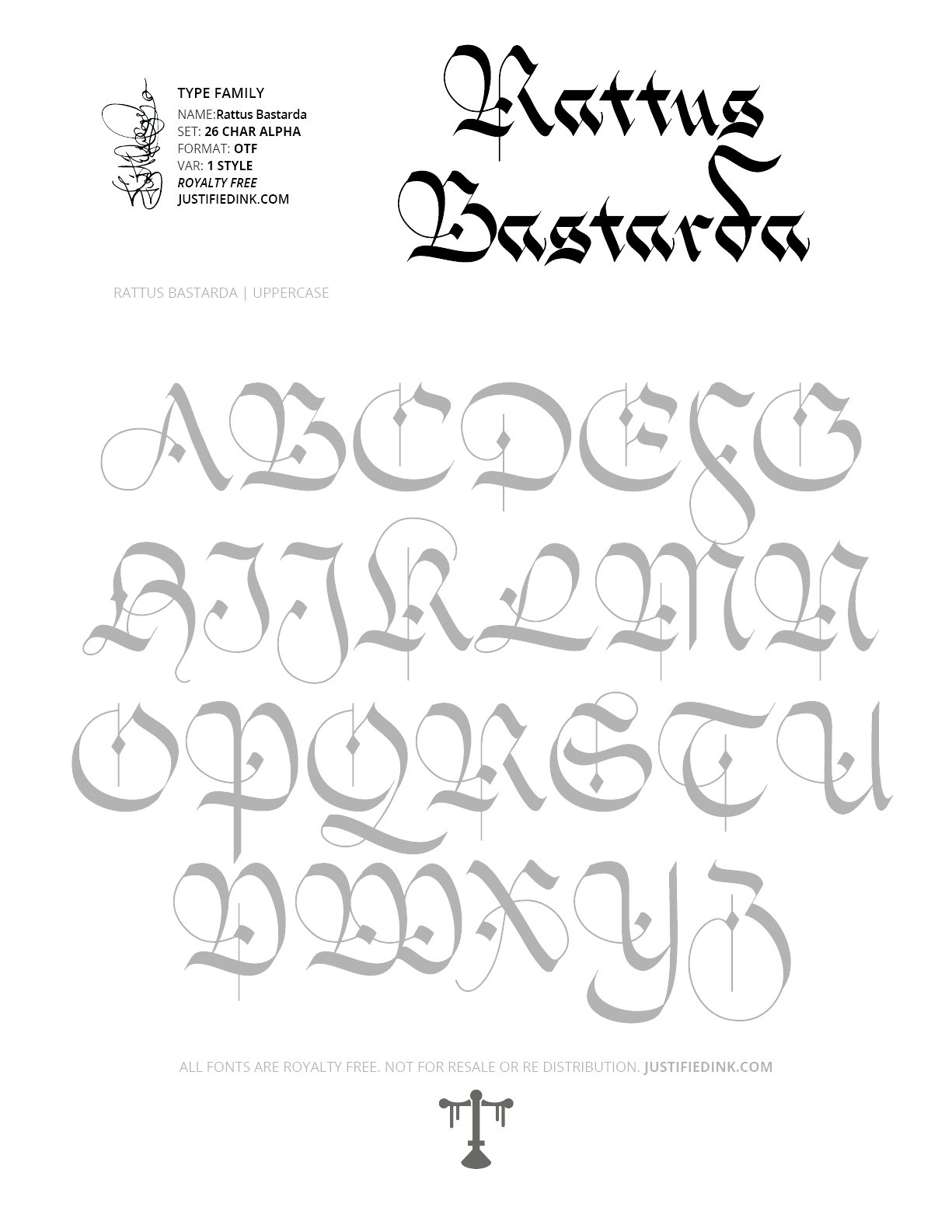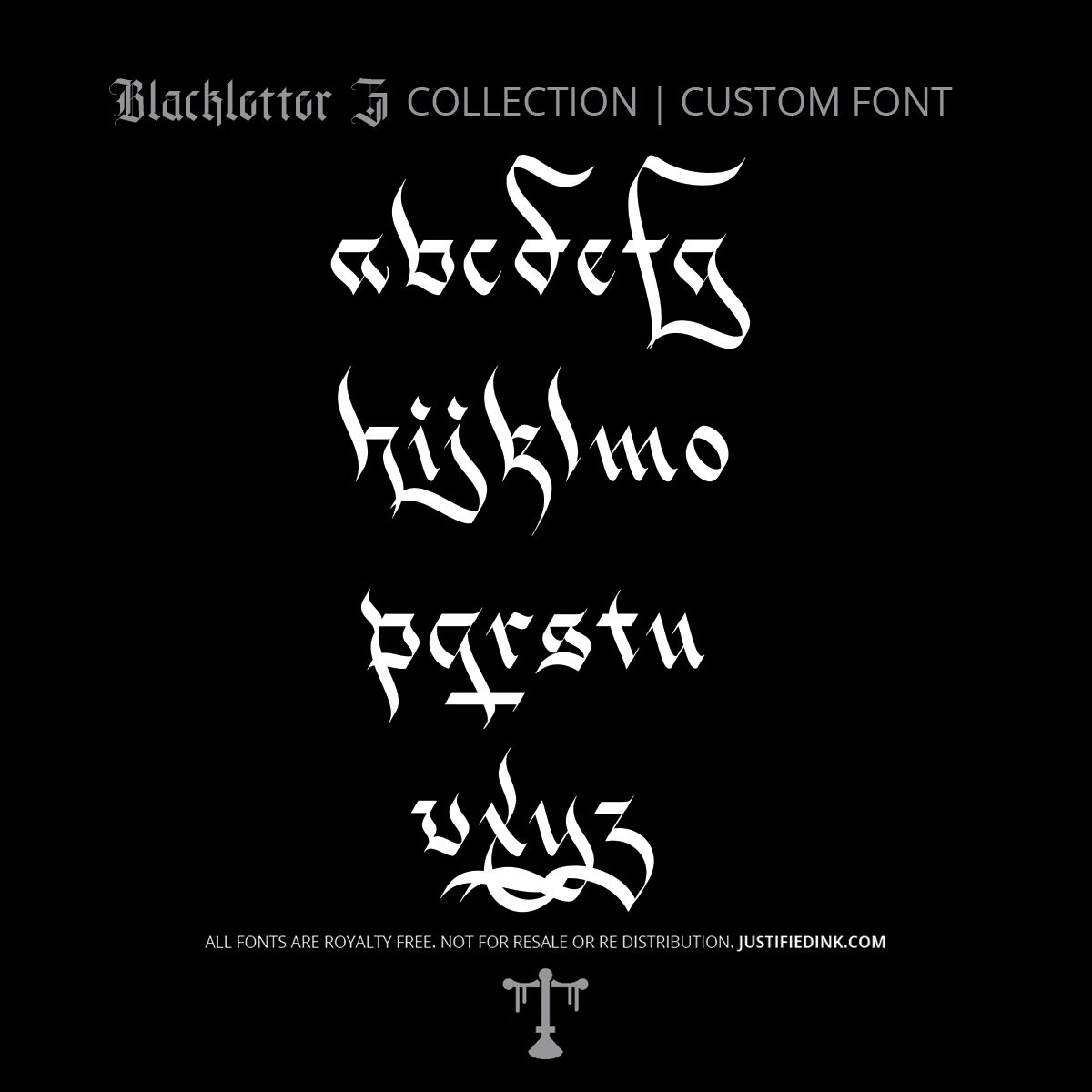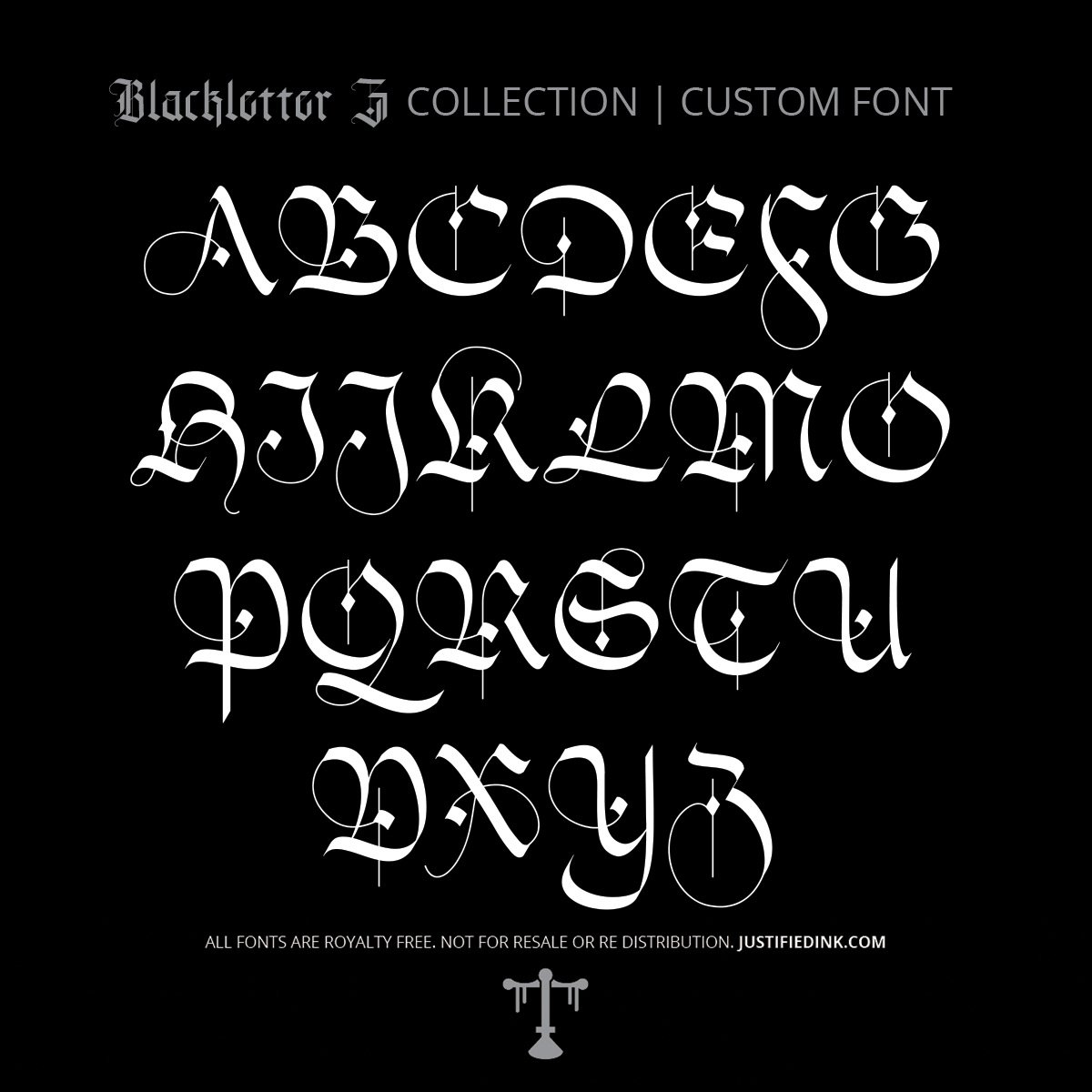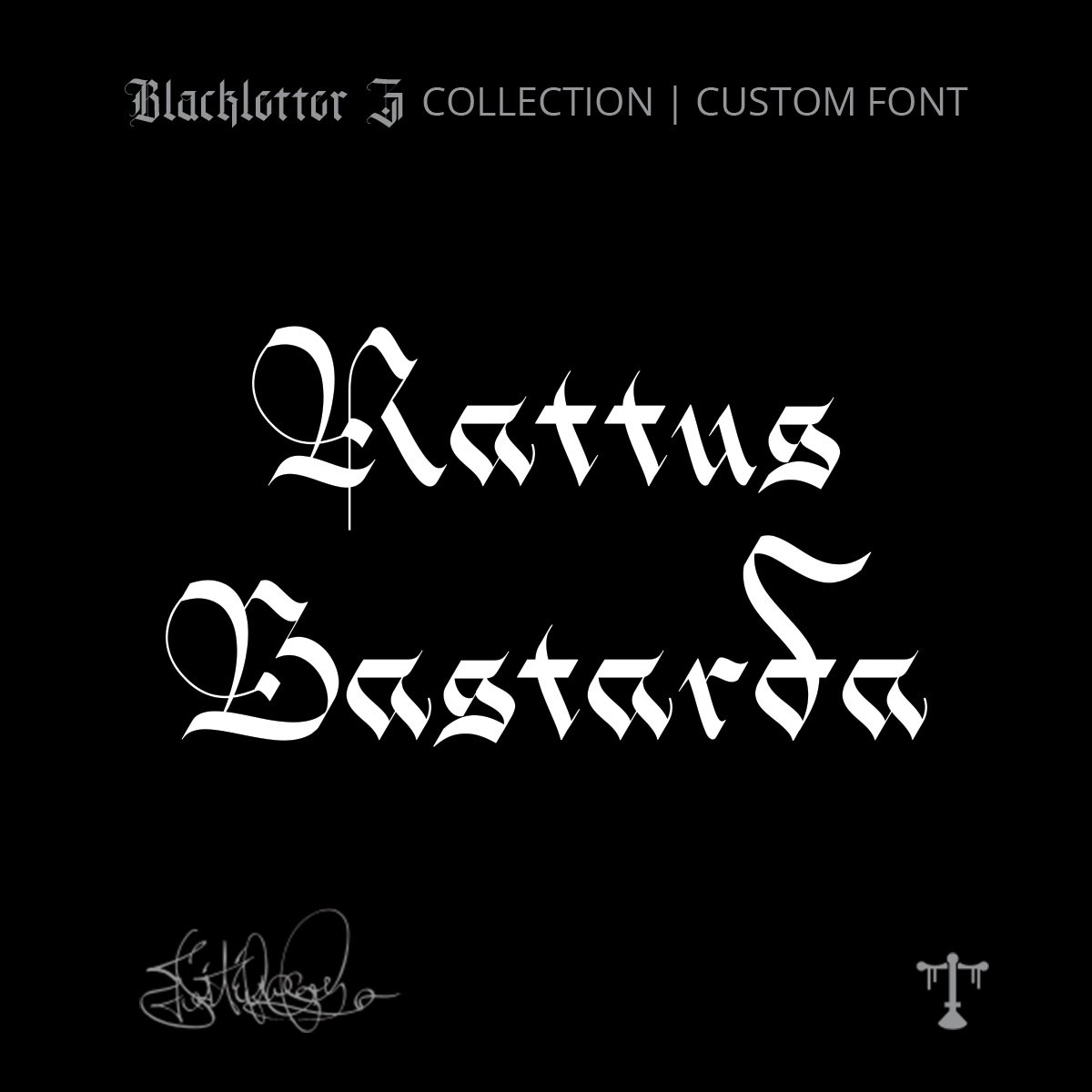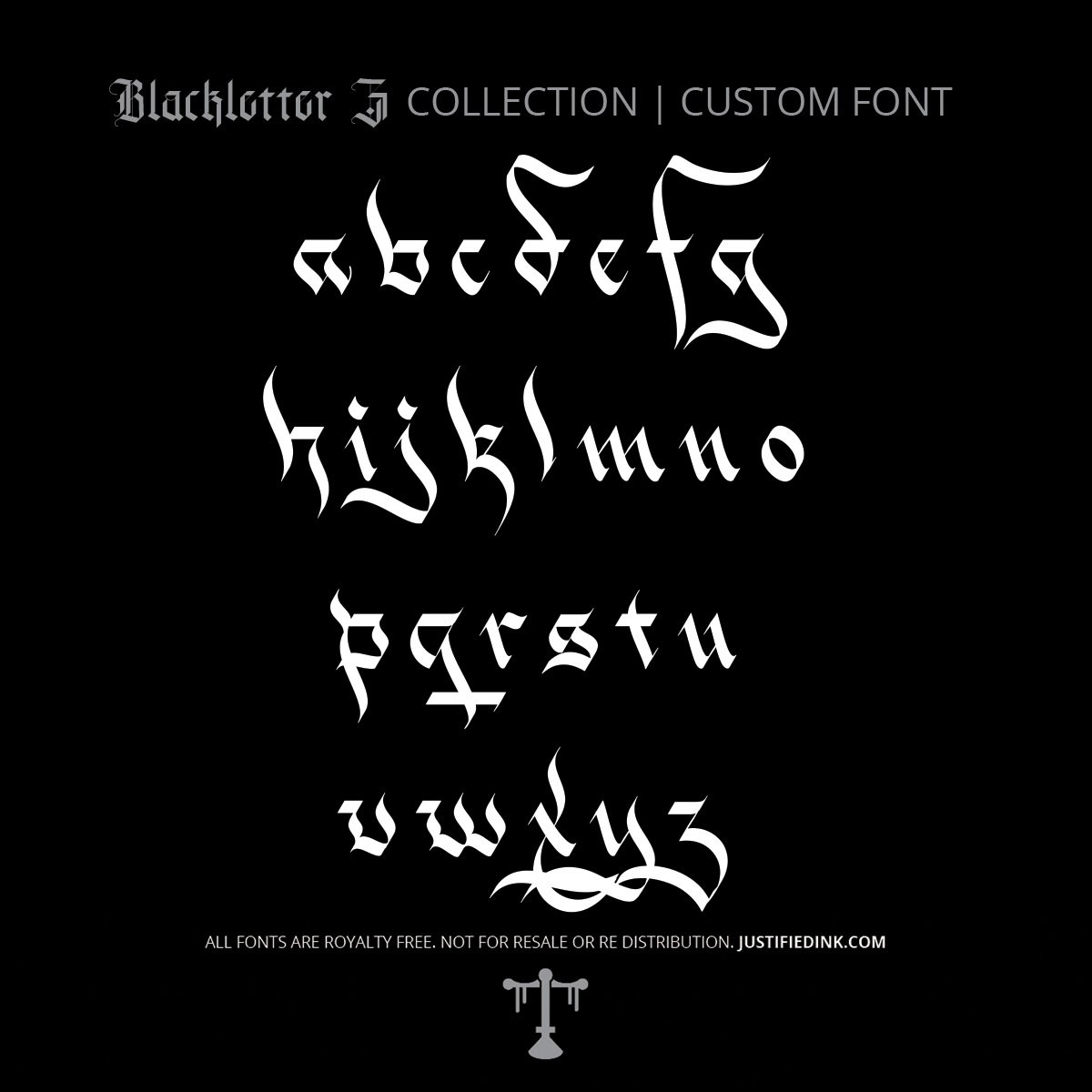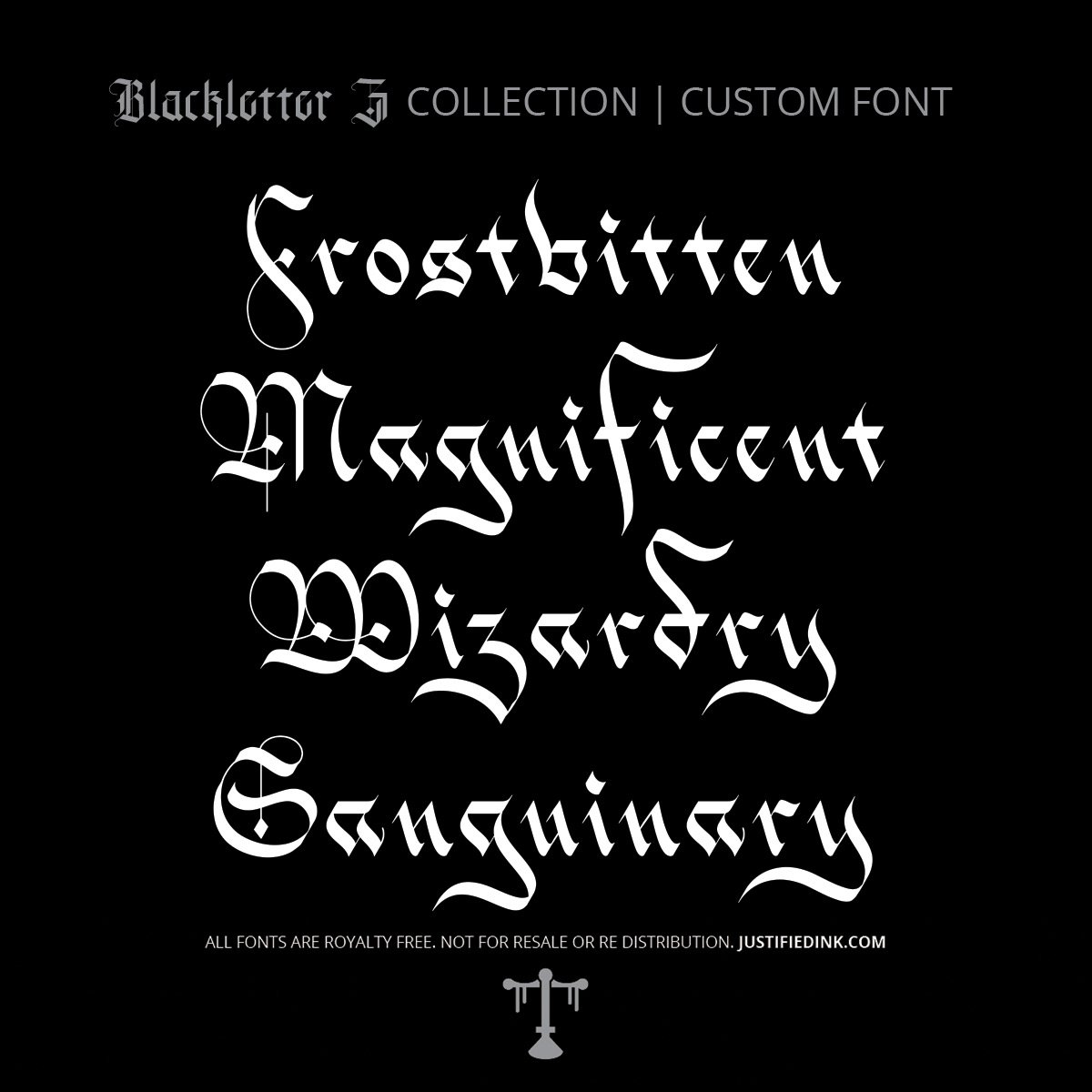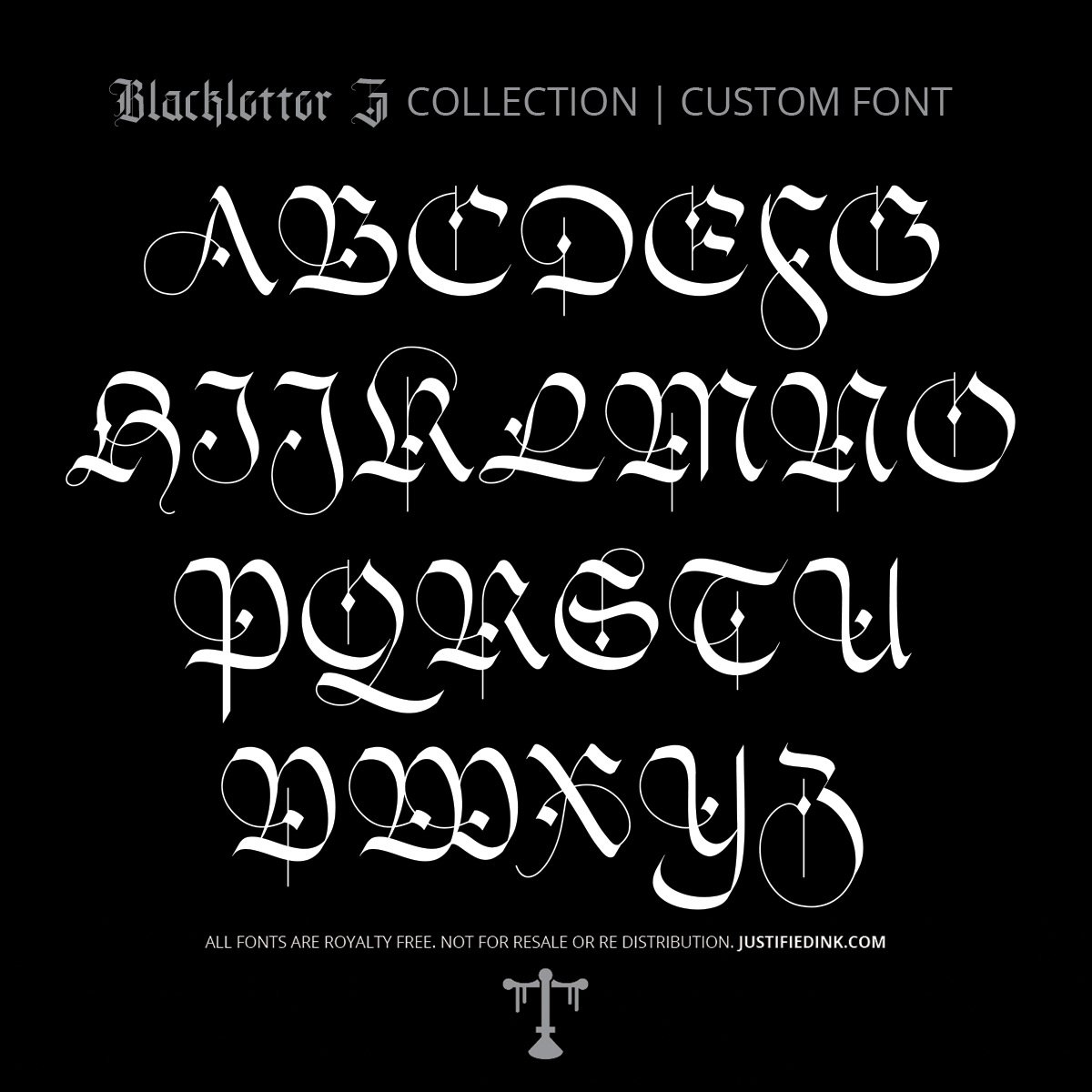
Rattus Bastarda (1 style) - Custom Font
The Feral Edge of Medieval Script
Rattus Bastarda takes the wild energy of bastarda gothic lettering and sharpens it into a font with grit and bite. Uneven, restless, and full of character, it thrives in tattoo lettering, underground zines, or experimental gothic type layouts. A script for those who prefer their fonts untamed.